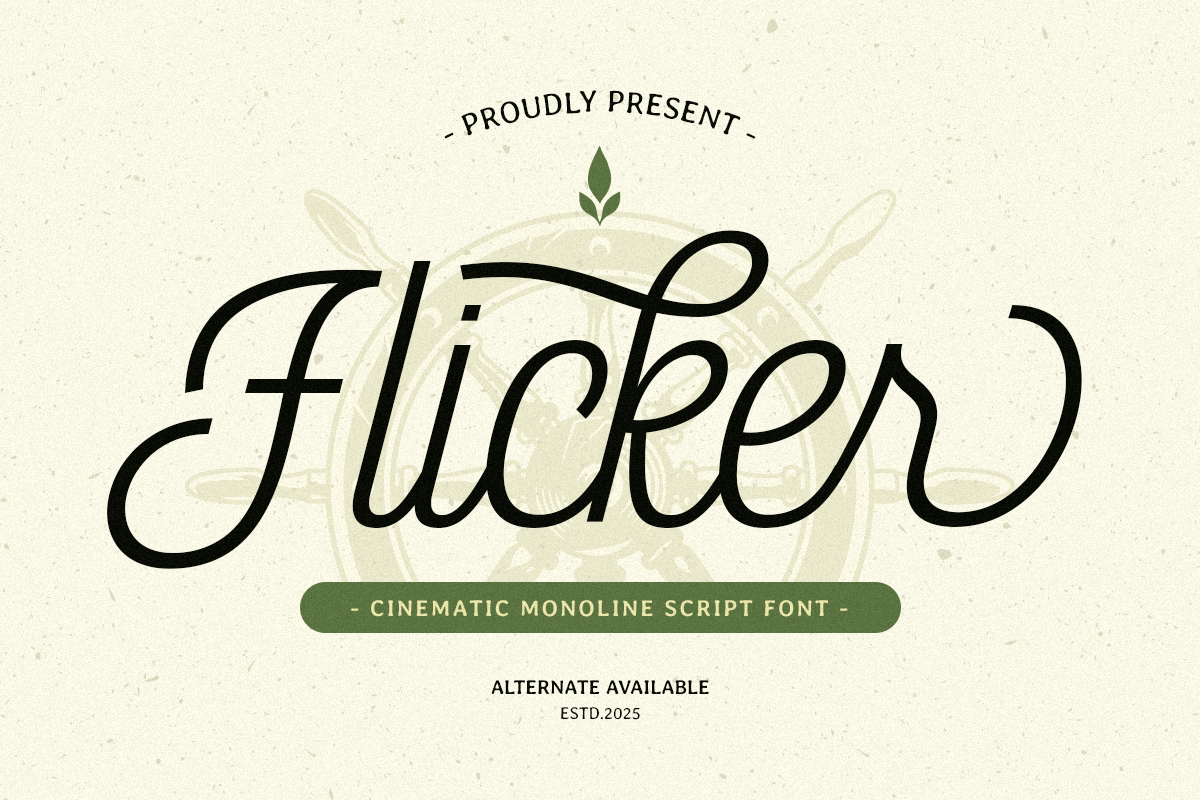
Flicker
-Cinematic Monoline Script FontFlicker - Cinematic Monoline Script Font
FLICKER is a cinematic monoline script font that effortlessly combines elegant, flowing script with the sleek simplicity of monoline design. Perfect for creating film titles, high-end branding, and artistic design projects, FLICKER captures the essence of cinematic sophistication with a modern twist.
Whether you're designing for a film studio, luxury brand, or a creative project, FLICKER adds an elegant and professional touch to your branding. Its unique monoline structure gives it a refined, timeless aesthetic, making it perfect for logos, invitations, posters, and more.
FLICKER – Cinematic Monoline Script Font Features
Vintage monoline script with cinematic influence
Ideal for branding, film titles, logos, and creative projects
Stylish, professional design with modern appeal
OpenType features for advanced typographic flexibility
Add a touch of cinematic elegance to your projects with FLICKER – the perfect monoline script font for branding and creative design. 🎬✨